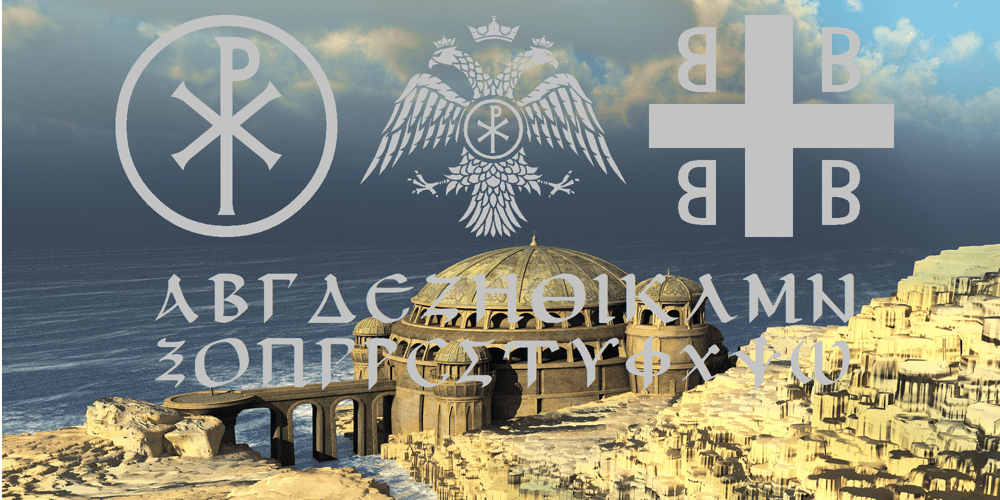
Ongunkan Byzantine Empires Font Family was designed by Osman Nuri ALKAN and published by Runic World Tamgacı. Ongunkan Byzantine Empires contains 1 styles and family package options. For this Byzantine Empire calligraphy font, I had to work for 2 weeks and 3-4 hours a day and search the internet. It made me very tired, but I finally finished it, and it was good. This font can use both latin keyboard and greek keyboard. I also added Greek unicode characters. I will adapt this font to the latin alphabet, I will make the full character set font, this will take less time. I wish you good work.